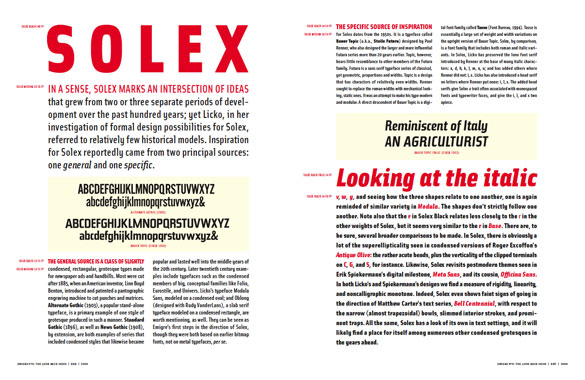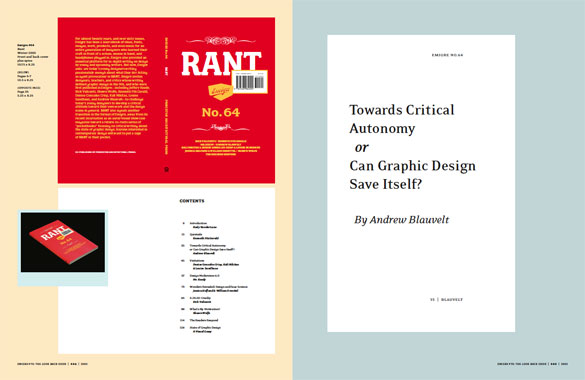
Emigre No.70: The Look Back Issue - Selections from Emigre magazine #1 - #69
Emigre and Gingko Press are proud to announce the publication of Emigre No.70: The Look Back Issue – Celebrating 25 Years in Graphic Design. The 512-page book covers the best of a quarter century of Emigre magazine – one of the most influential design publications ever.
During the late 1980s and throughout the 1990s, graphic design was experiencing one of its most exciting and transformative periods. The Apple Macintosh computer had been introduced, design schools were exploring French linguistic theory, the vernacular had become a serious source of study and inspiration, the design and manufacture of typefaces was suddenly opened up to everyone who could use a computer, and for the first time in the United States, New York City was no longer the place to look for the latest developments in graphic design. And in Berkeley, California, across the bay from Silicon Valley, Emigre magazine, like no other, recognized the significance of the events, and became both a leading participant and a keen observer of this innovative international design scene, generating a body of work and ideas that still resonate today.
Fueled by Emigre's successful digital type foundry, the magazine became one of the most popular and controversial graphic design magazines of its time. 69 issues were published in a variety of formats, featuring in-depth interviews with fellow design trailblazers and critical essays by an emerging group of young design writers.
This book, designed and edited by Emigre co-founder and designer Rudy VanderLans, is a selection of reprints, using original digital files, tracing Emigre's development from its early bitmap design days in the late 1980s through to the experimental layouts that defined the so called "Legibility Wars" of the late 1990s, to the critical design writing of the early 2000s.
Emigre No.70 is a must have book for those who missed out on all the excitement the first time around and for those who have been long time Emigre fans alike. Any graphic design library would be incomplete without it.
Featuring interviews with, among others, The Designers Republic, Allen Hori, Rick Valicenti, Vaughan Oliver, Mr. Keedy, Ed Fella, and essays by Lorraine Wild, Anne Burdick, Zuzana Licko, Kenneth FitzGerald, Andrew Blauvelt, Kalle Lasn, Rick Poynor and many more.
Below: A sampling of spreads from the book Emigre No.70 - The Look Back Issue